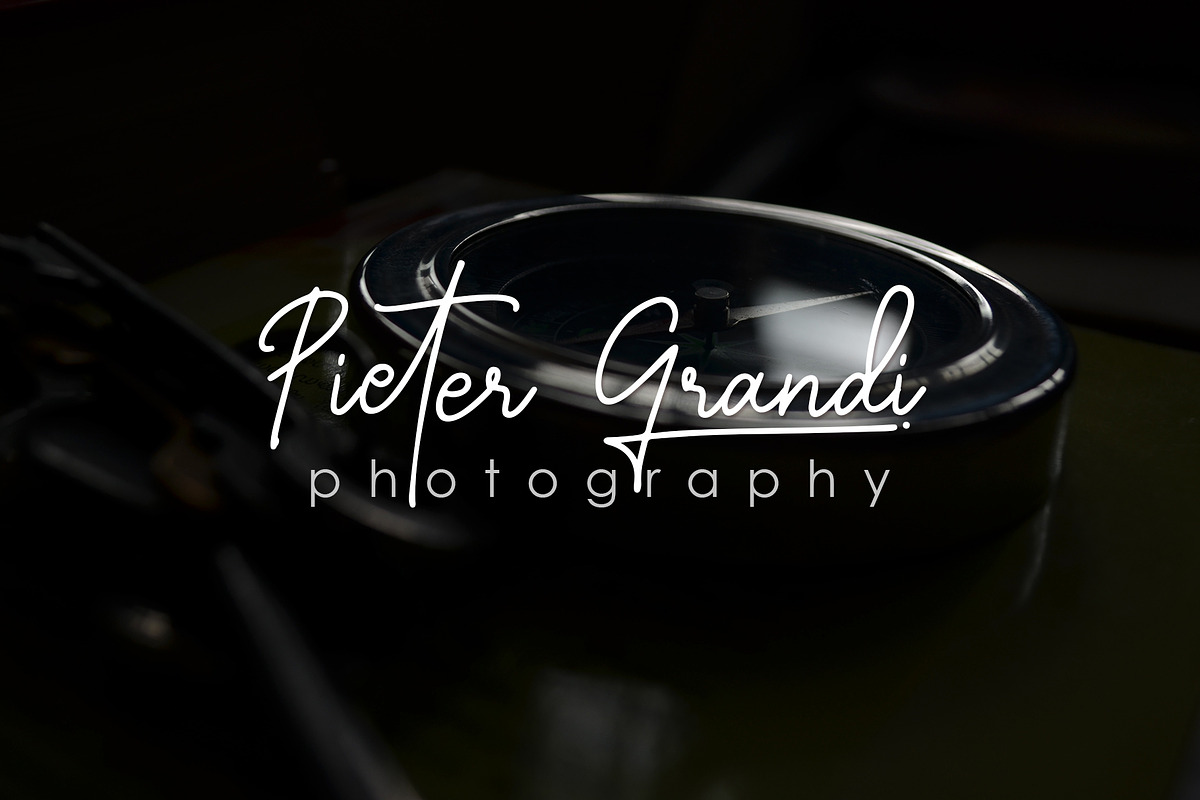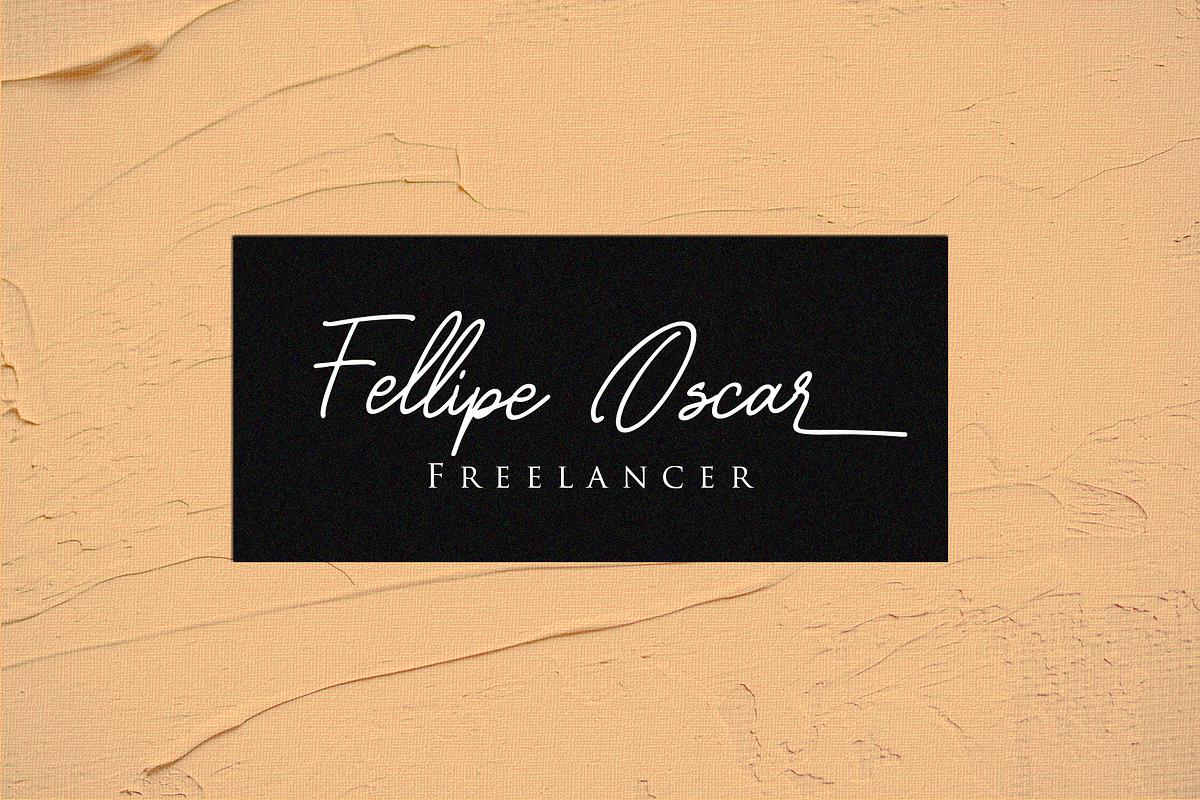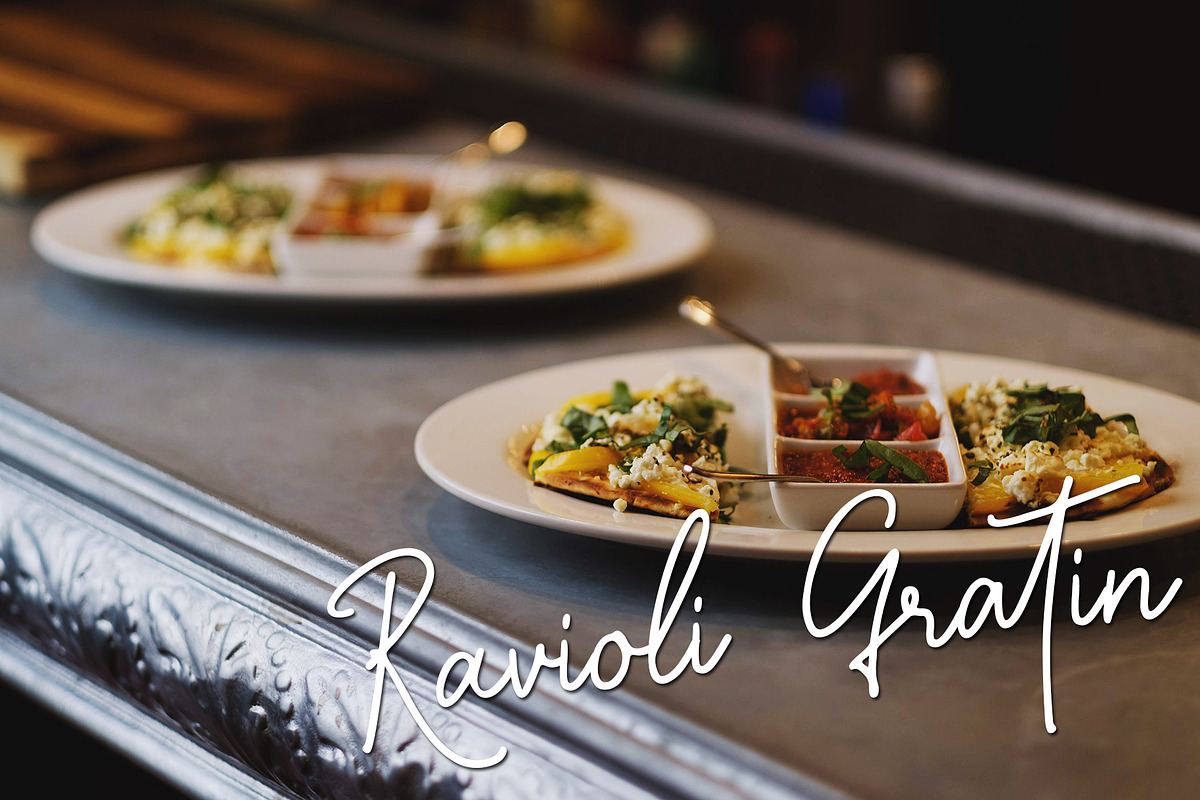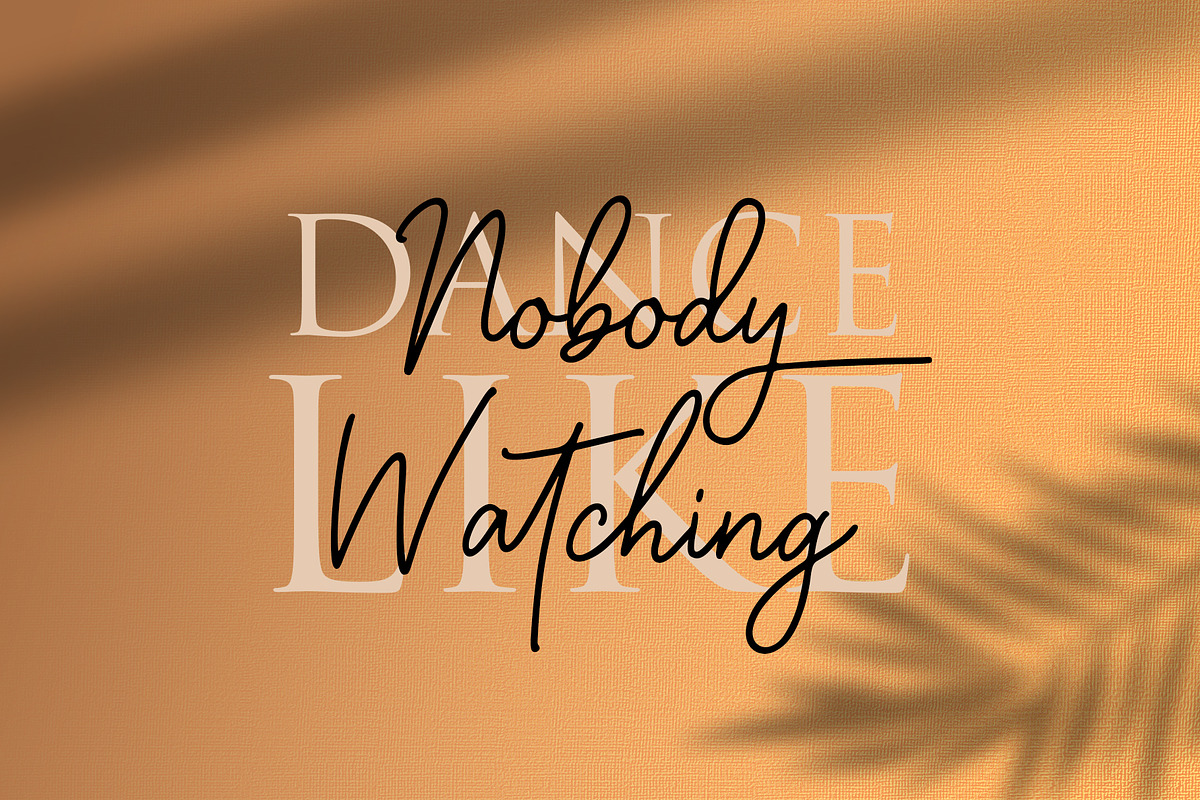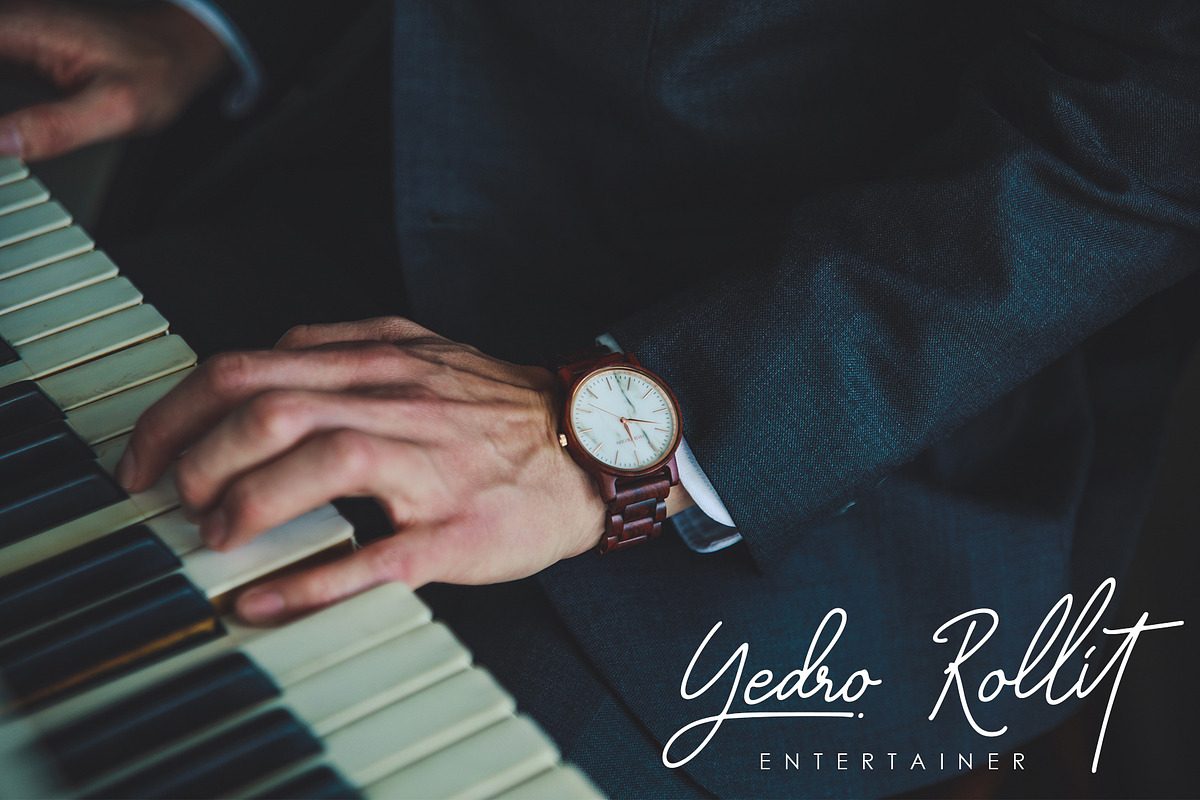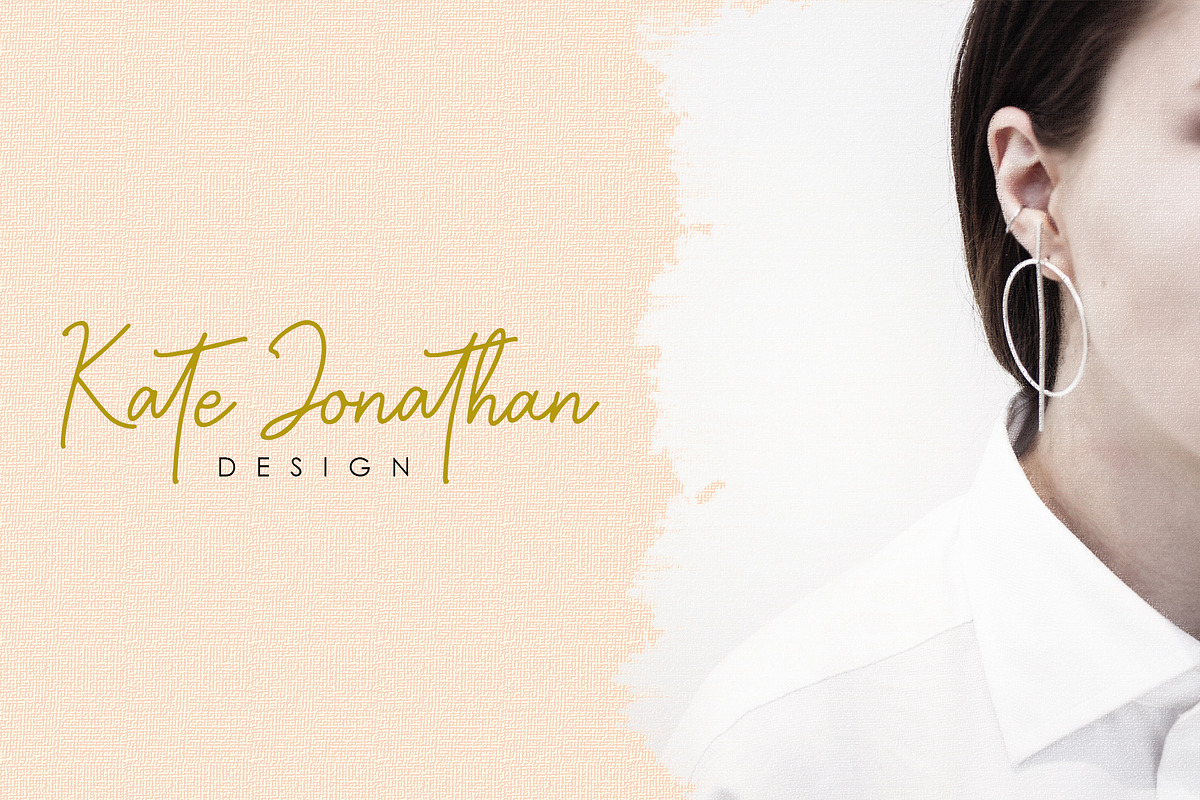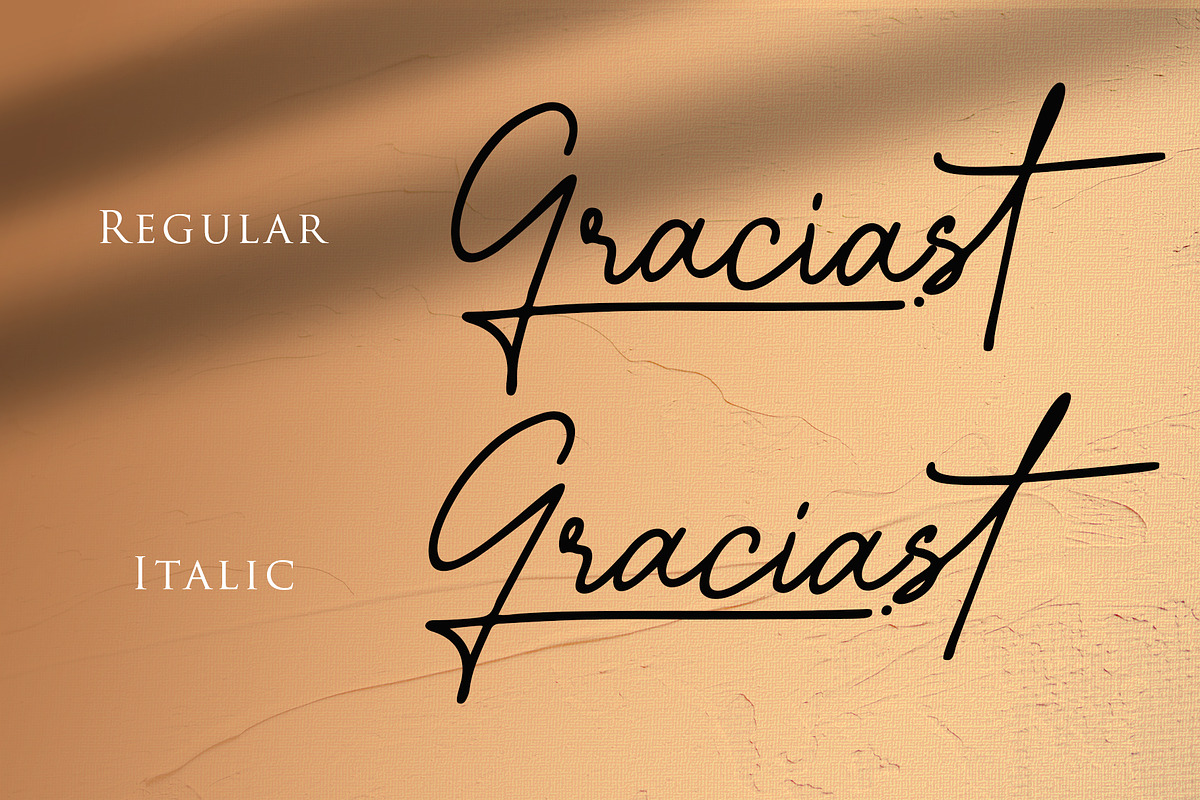
Graciast - Signature Font
Graciast - An Elegant Signature Font
Graciast perfect for any designs, that will gives the elegance look, classy and modern. Comes with two versions, Regular and Italic. Also with some opentype features like alternative characters and ligatures. Graciast is a well made handwritten font, it's easy to use and versatile. You can apply this font on your branding, logos, digital signature, photograph, or improve your business with any kind of promotions stuff using this font.
Comes in two versions, regular and italic
Contains uppercases, lowercases, numerics and punctuations
Comes with stylish alternatives characters and ligatures, to make your design more elegant
Support multilingual characters